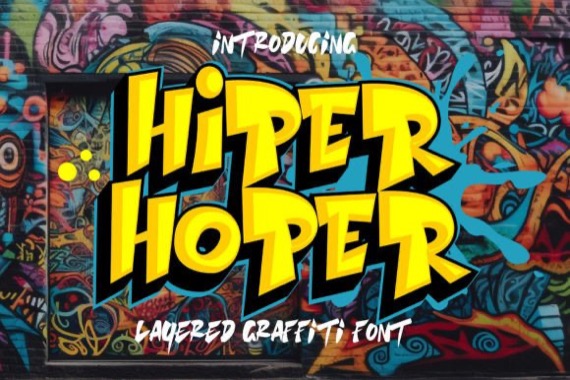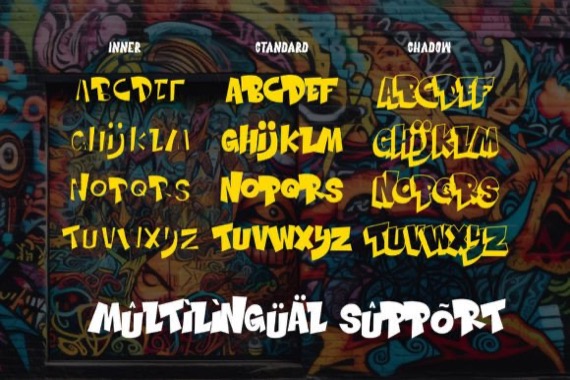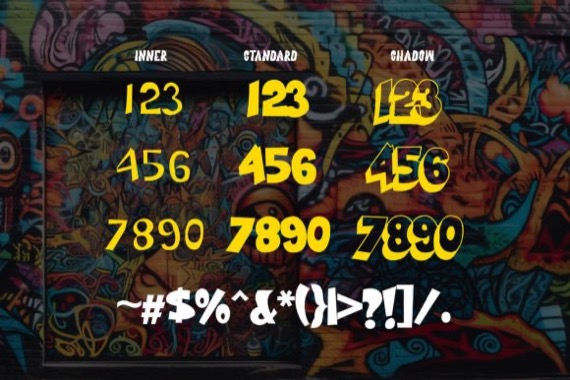
Hiper Hoper Font
Hyper Hoper is a 3D layered graffiti font that includes regular, shadow, and inner styles within each character. Fonts with multiple layers like this are designed to provide a three-dimensional effect to the text, enhancing its depth and visual appeal.
By utilizing the regular, shadow, and inner layers in “Hyper Hoper,” you can create text that appears to have depth and dimension, with shadowed and inner details adding a dynamic quality to the font. This font is suitable for various design projects such as graffiti art, posters, or any creative work where a bold and three-dimensional typographic style is desired.
Hiper Hoper Graffiti Display Font